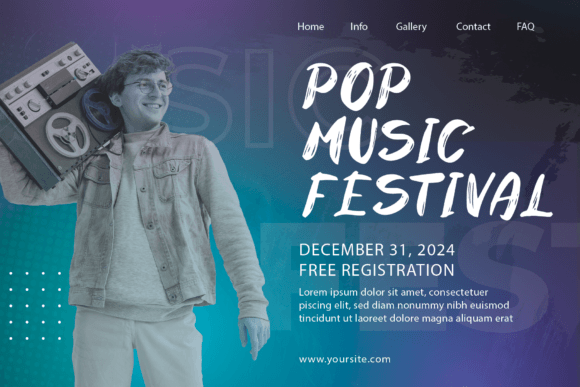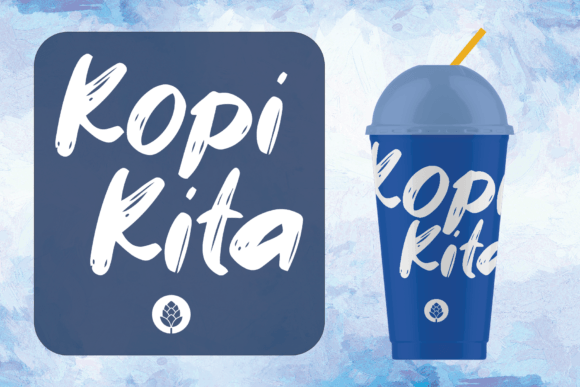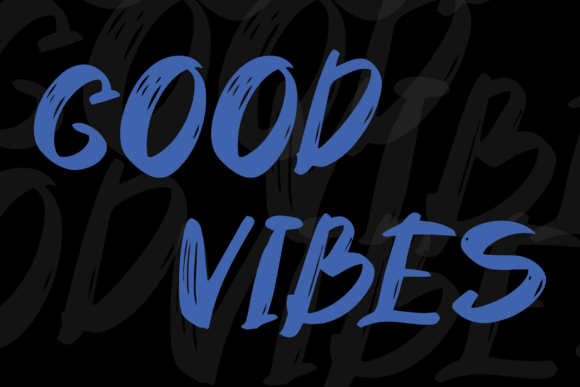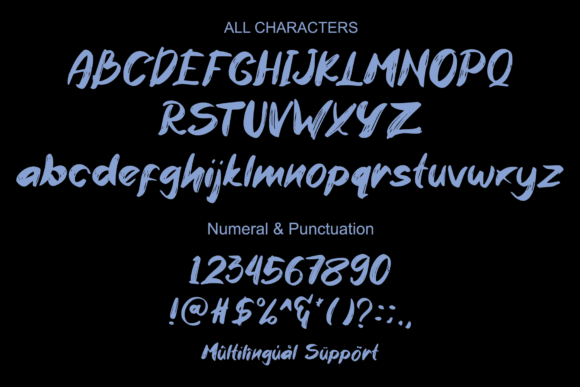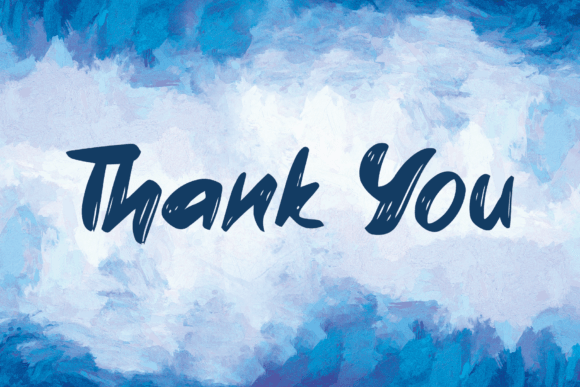
Introduction to Lavatera Font
As a designer, you know the thrill of finding that perfect font to bring your creative project to life. The search can be endless, but sometimes, it’s that one discovery that makes all the difference. For me, that moment came when I stumbled upon the Lavatera Font. Its unique blend of strength and elegance caught my eye, and I knew I had to learn more.
Lavatera Font is more than just a stylish addition to your design arsenal. It’s a high-quality resource that offers a wealth of possibilities for creative expression. With its standard uppercase and lowercase characters, numbers, punctuation, ligature, and multilingual support, this versatile font is perfect for designers looking to add a touch of sophistication to their work.
Lavatera Font
- Characteristics: elegant, modern, and minimalist design
Honest Review: Lavatera Font
I recently stumbled upon the Lavatera Font and was excited to put it to the test in my creative project. Overall, I’m quite pleased with this high-quality design resource.
- ✨ The font’s modern and elegant design makes it perfect for any project that requires a touch of sophistication.
- ✨ The transparent background allows for seamless integration with various design elements, giving you complete control over the final look.
- ⚠️ One potential limitation is the lack of bold and italic versions, which might be a drawback for some designers.
- ⚠️ Additionally, the font’s limited character set might not be suitable for projects that require a wide range of characters.
Lavatera Font
Tips for Getting the Most Out of Lavatera Font
Experiment with different font sizes and colors to create a visually appealing design. You can also combine the Lavatera Font with other design elements to create a unique look.
The Lavatera Font is ideal for creating visually appealing designs for business cards, brochures, and social media graphics. Its high-quality design makes it a great resource for any creative project.